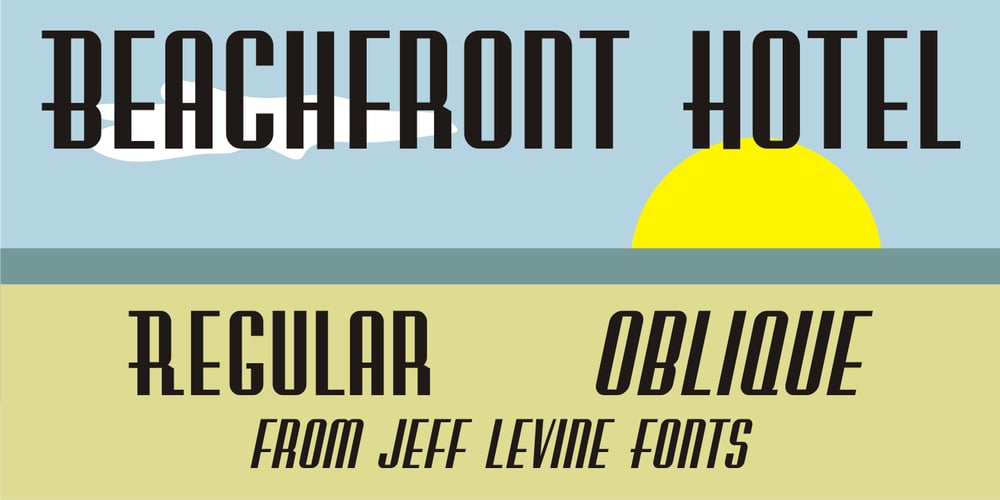
Beachfront Hotel JNL Font Family was designed by Jeff Levine and published by Jeff Levine. Beachfront Hotel JNL contains 2 styles and family package options. The Raleigh Hotel at 18th Street and Collins Avenue on Miami Beach is an Art Deco landmark and part of the city’s popular tourist district. A vintage matchbook from the hotel had its name hand lettered in what is now Beachfront Hotel JNL; available in both regular and oblique versions. The lower case letters have been made more traditional, eliminating the Deco-influenced “overhangs” present on the capital letters, and an alternate “E” from the original matchbook design is available on the bar and broken bar keys.